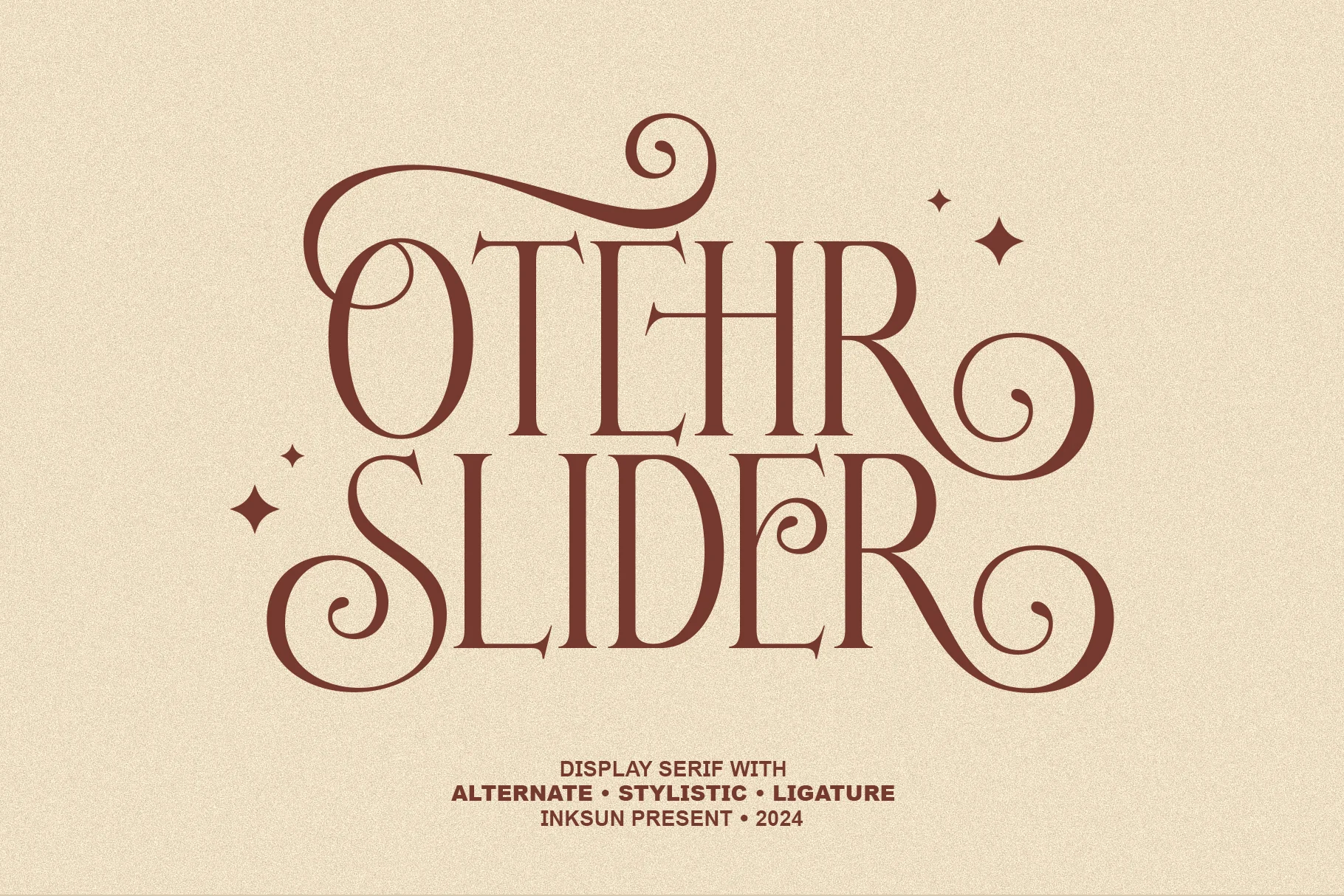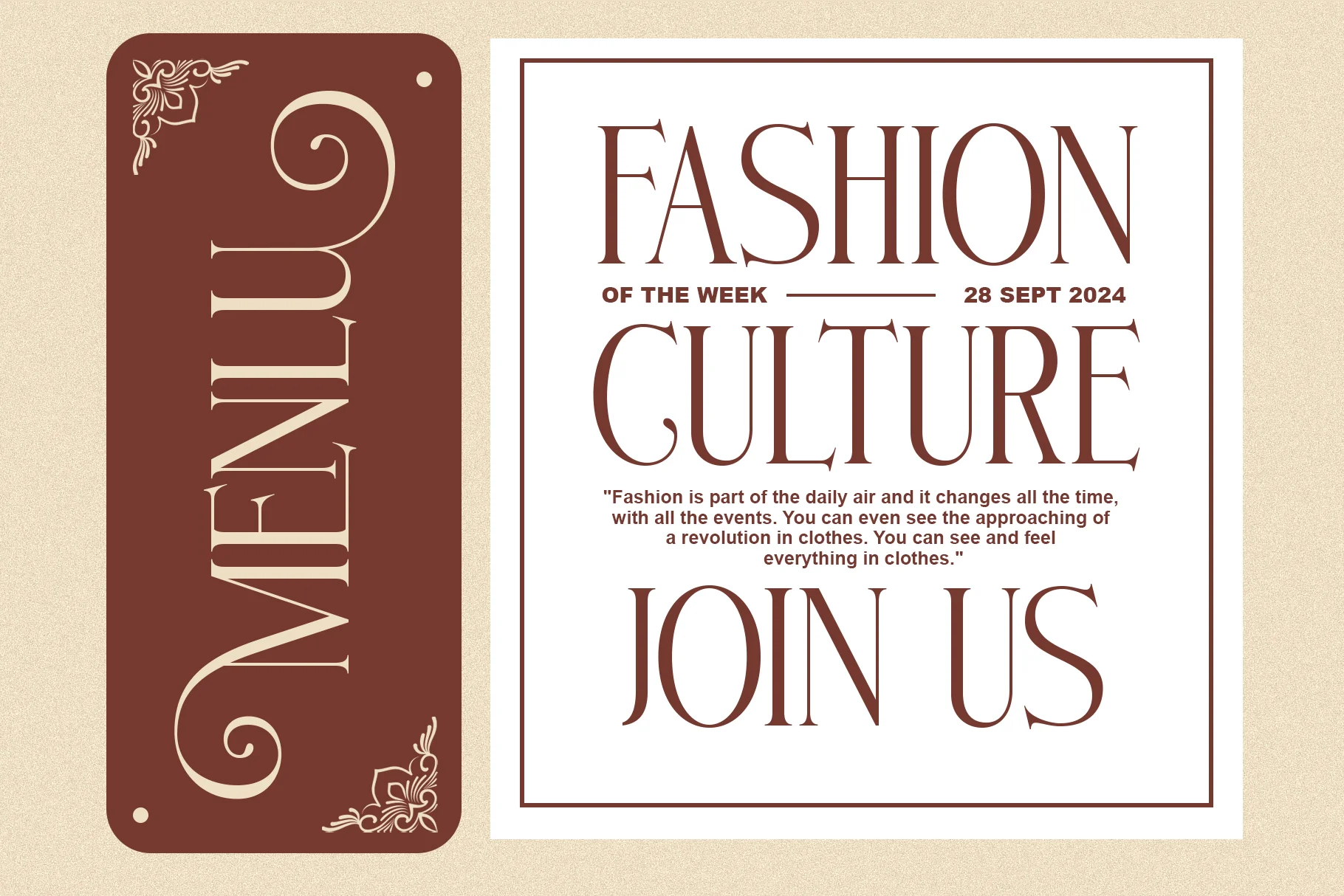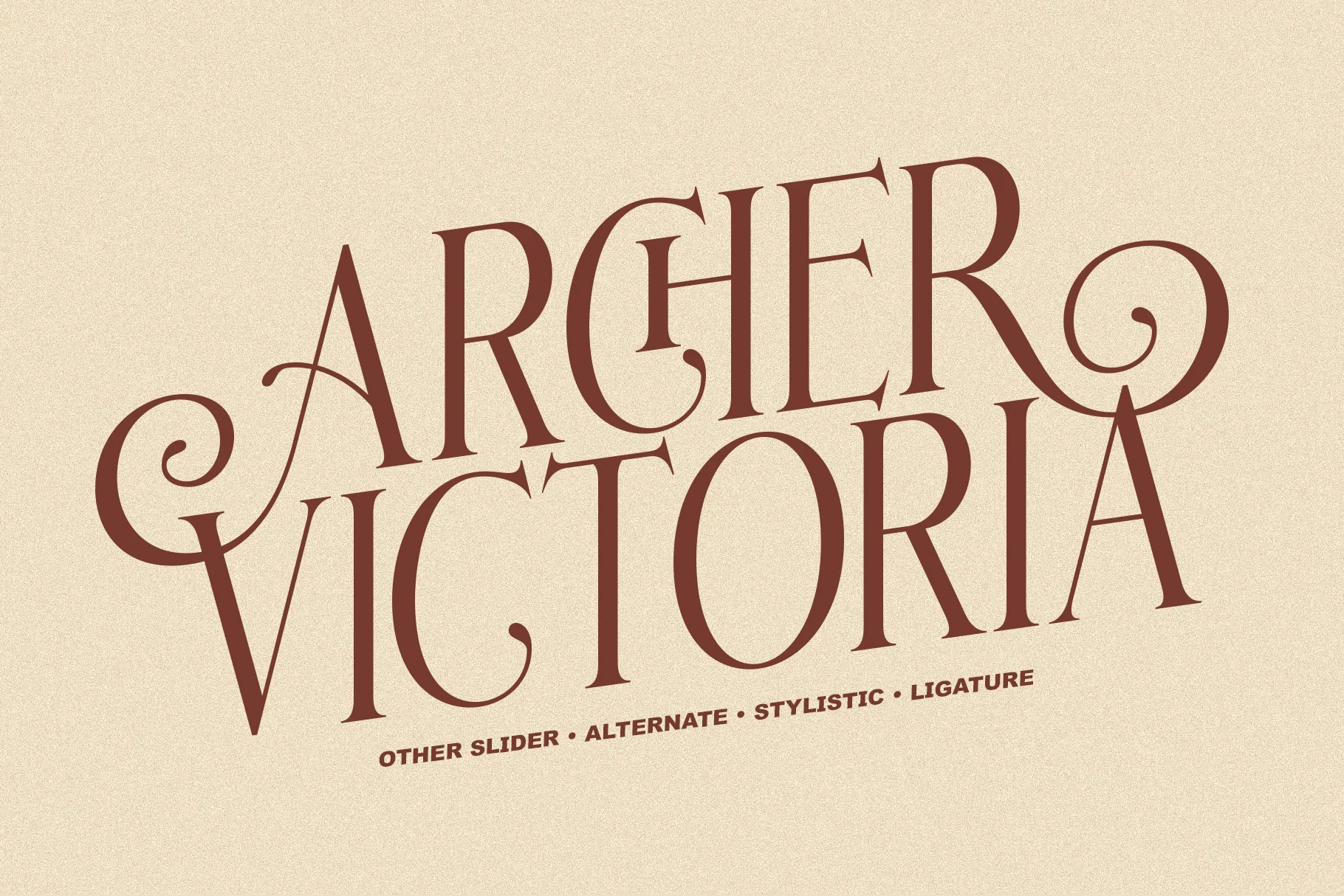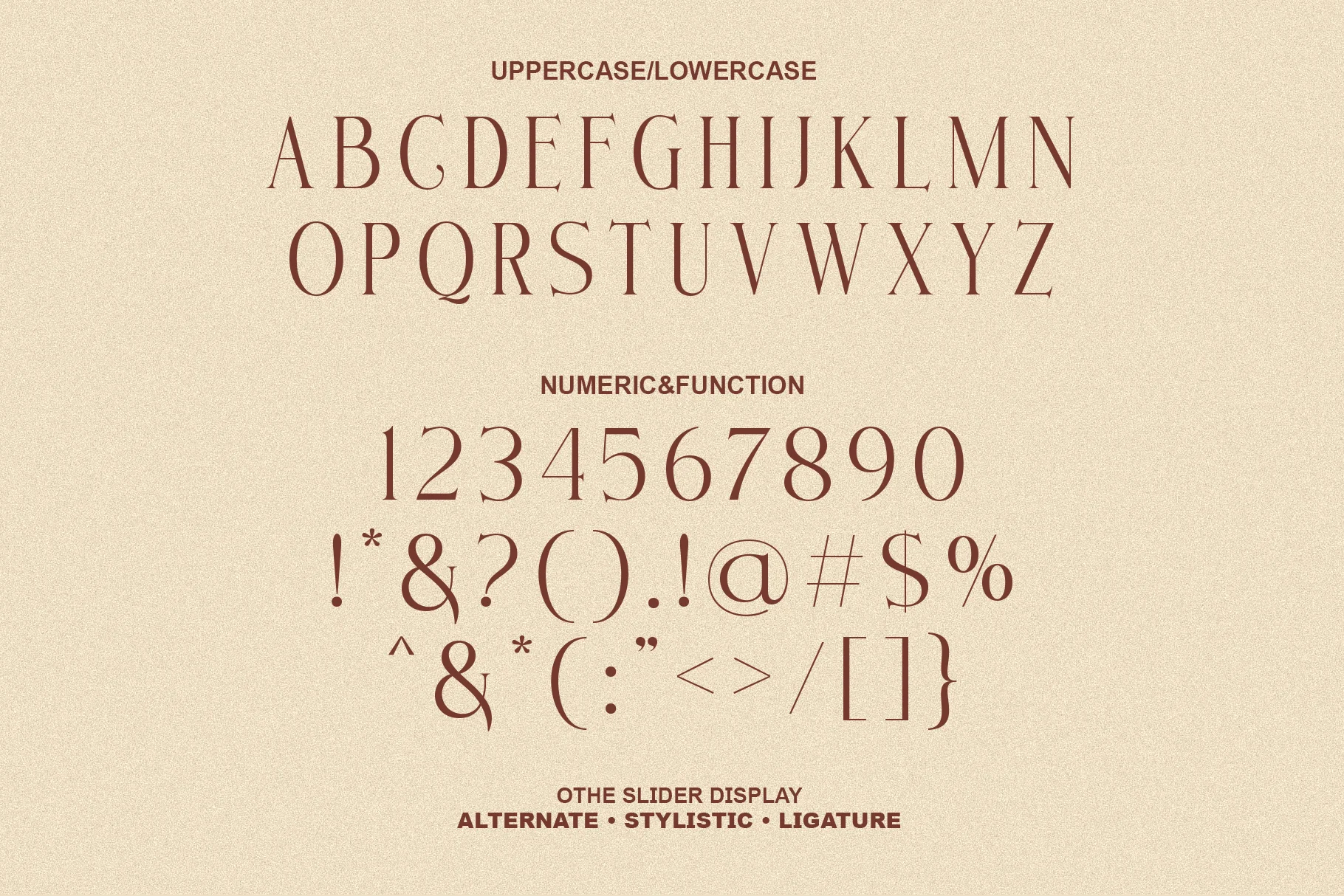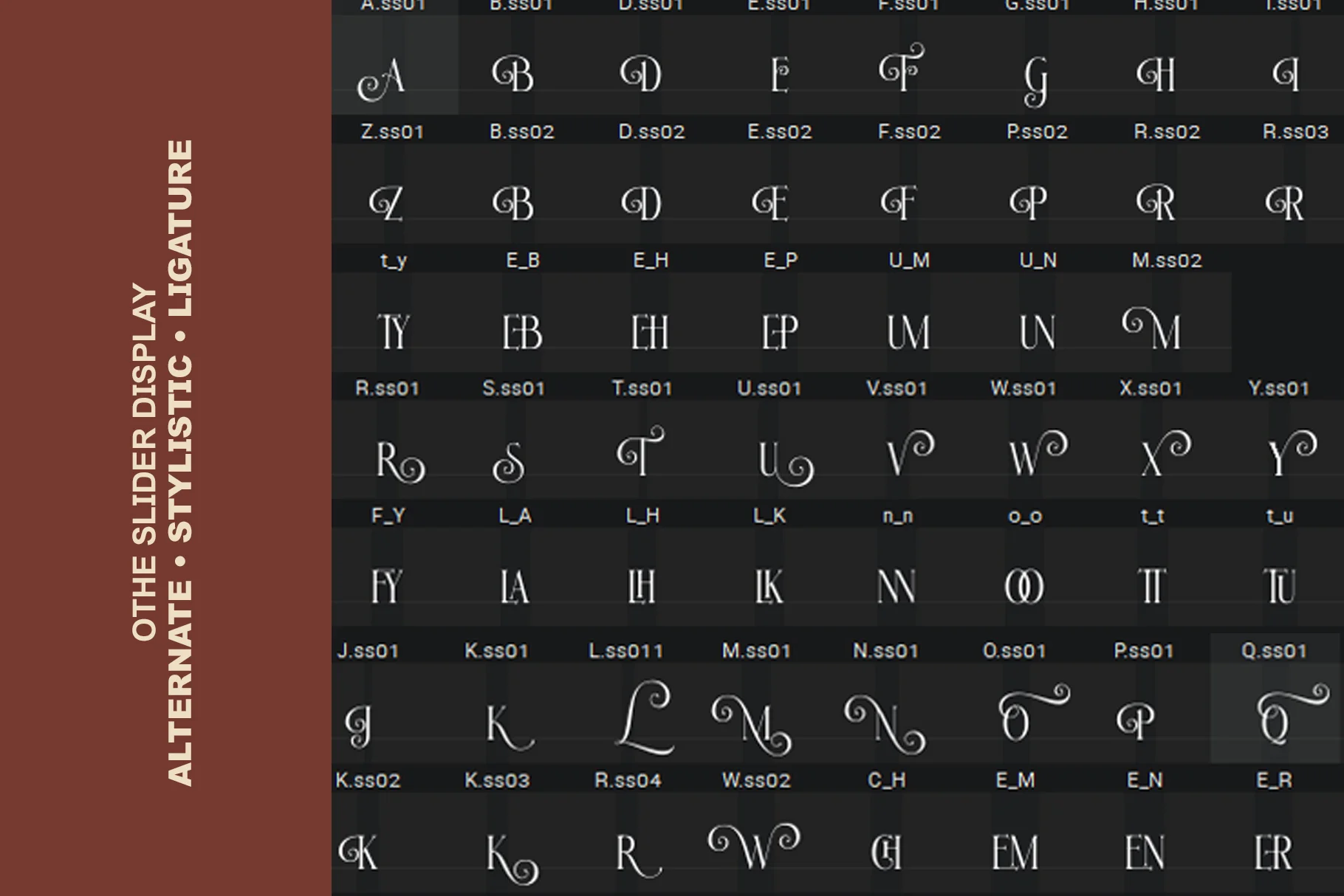
Other Slider
This font is categorized as a Display Serif, specifically designed to draw attention to titles or logos. Its most prominent feature is the artistic, curvy, decorative swash at the ends of letters like 'O', 'T', 'R', and 'S'. This gives the impression of dynamic and luxurious movement.
Other Slider